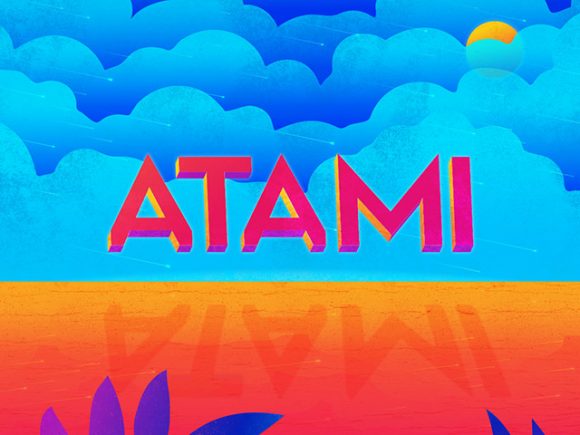
Free Atami A geometric and modern sans-serif font
Take a look at this awesome free atami a geometric and modern sans-serif font. This is a downloadable free typeface file brought to you by Freebies Bug. This is absolutely cool font so you can easily make world-class designs.